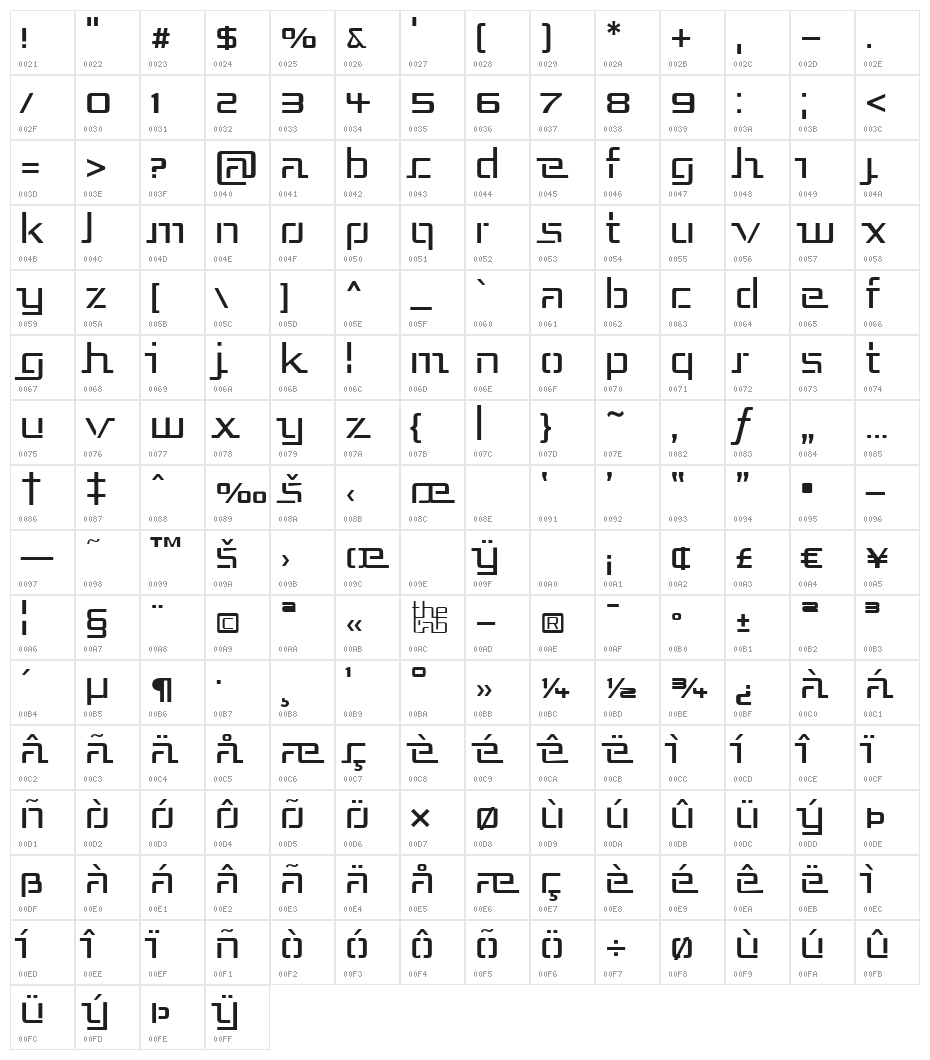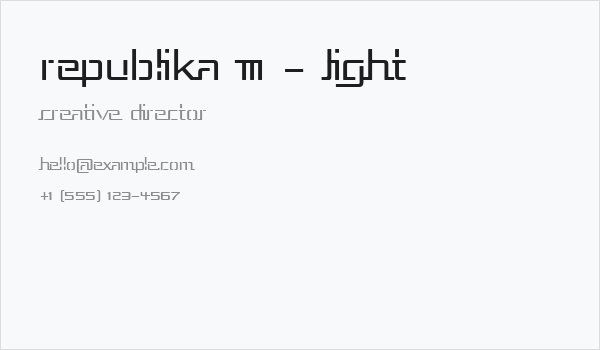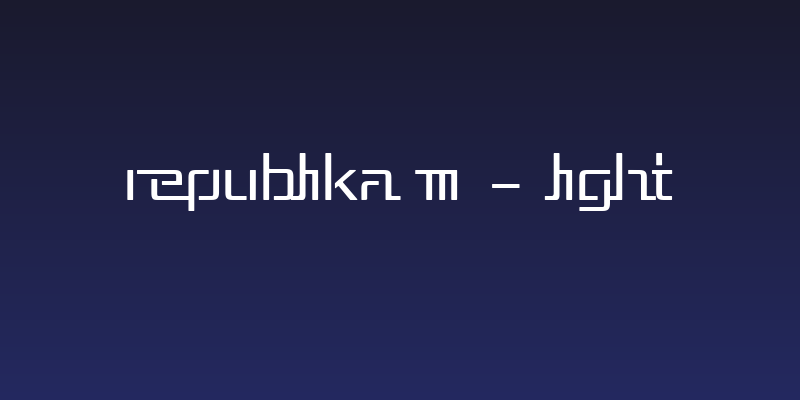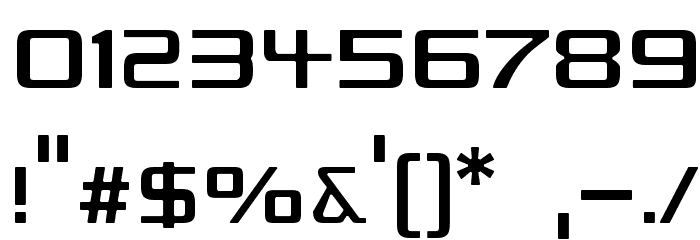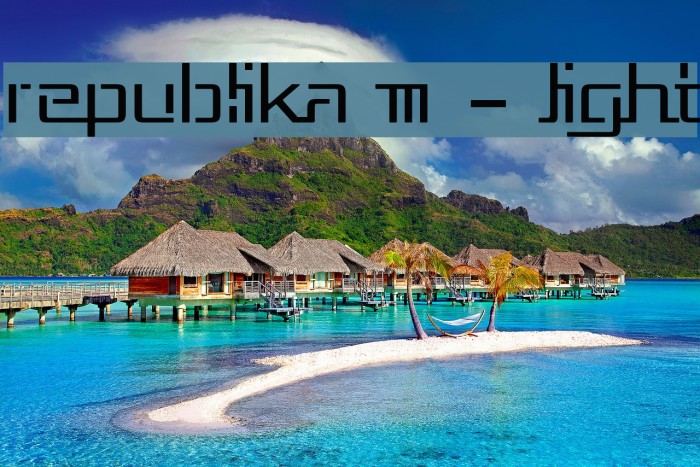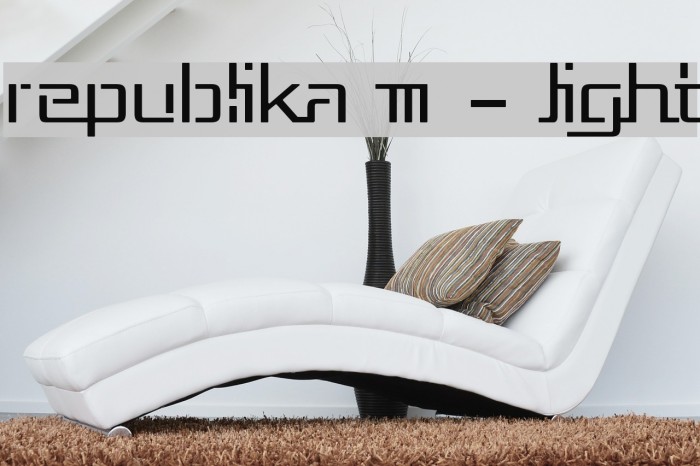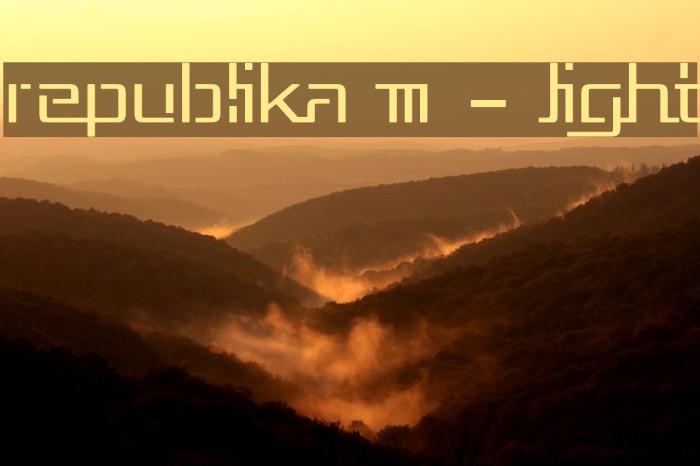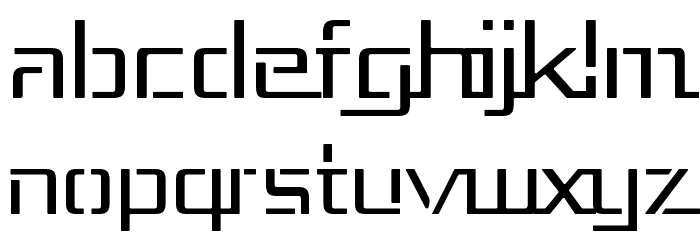
Republika III - Light Font
Republika III - Light Description
This font exhibits a modern, geometric style with a distinct futuristic appeal. The characters are constructed with clean, straight lines and sharp angles, giving it a technical and digital feel. The uppercase and lowercase letters maintain a consistent height, contributing to a uniform appearance. The numerals are similarly styled, with a focus on clarity and precision. Special characters are designed to match the overall aesthetic, ensuring a cohesive look across all glyphs. The font's structure is open and airy, making it suitable for both digital and print applications where readability and a contemporary look are desired.
| Proposed Projects | Ideal for technology branding, digital interfaces, futuristic posters, and modern web design. |